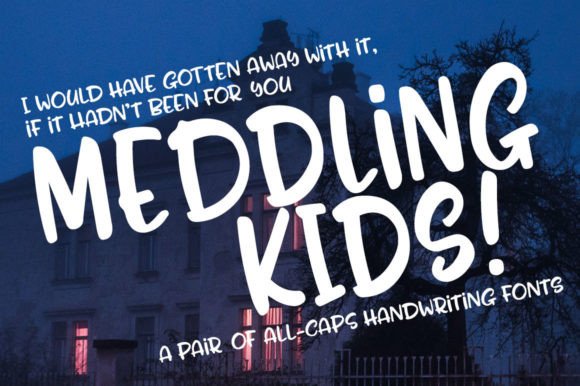
Get ready to unleash your creativity and spin a magical tale like never before with Meddling Kids, the remarkable script font family crafted with authors and story weavers in mind. Dive into a world where words dance and characters come alive, thanks to the meticulous design and captivating charm of Meddling Kids.
Embark on a thrilling adventure with Meddling Kids, a whimsical double-uppercase handwriting font. Let your imagination soar as you mix and match letters within a word to create an eye-catching, dynamic look. The possibilities are endless, just like the mysteries waiting to be solved in your stories.
Step into the spotlight with Meddling Kids Regular, a font that oozes sophistication and elegance. Its narrow strokes add a touch of refinement to your words, making it perfect for crafting heartfelt letters, enchanting poems, or thrilling novel chapters.
When you're in the mood for something a bit bolder, switch to Meddling Kids Wide, the font that commands attention. Its expansive, flowing strokes create a captivating presence that demands to be seen. Make your words sing with Meddling Kids Wide, whether it's in an adventurous tale of pirates, a riveting sci-fi saga, or a historical epic that spans generations.
Unlock the hidden storyteller within you with Meddling Kids, a font family that breathes life into your words and ignites your imagination. Let your creativity run wild as you delve into fantastical worlds and unforgettable characters, all brought to life by the magic of Meddling Kids.